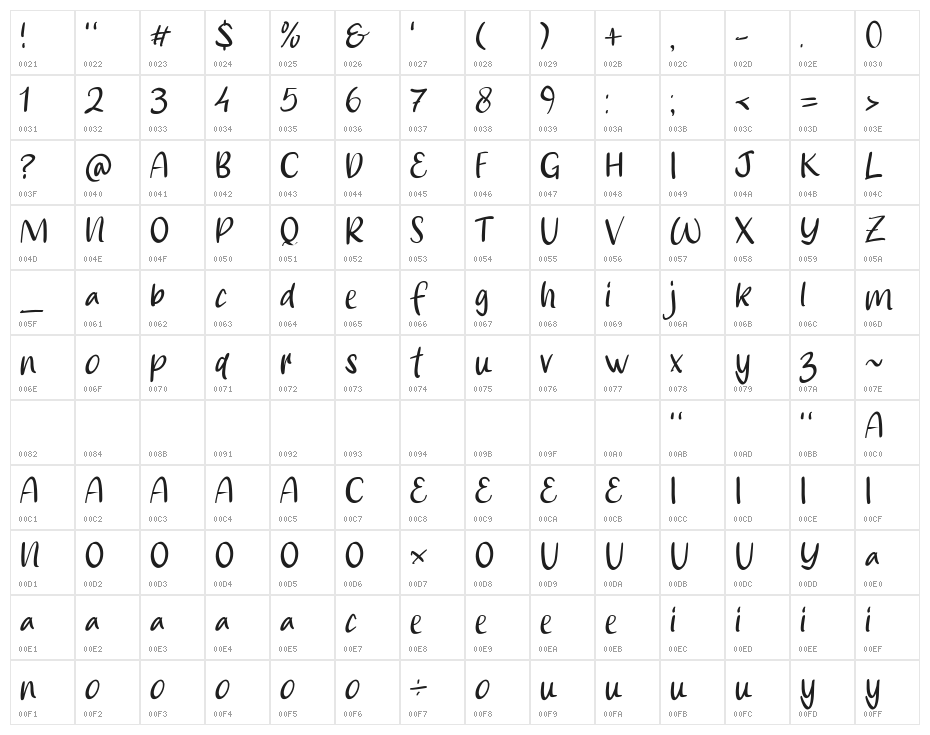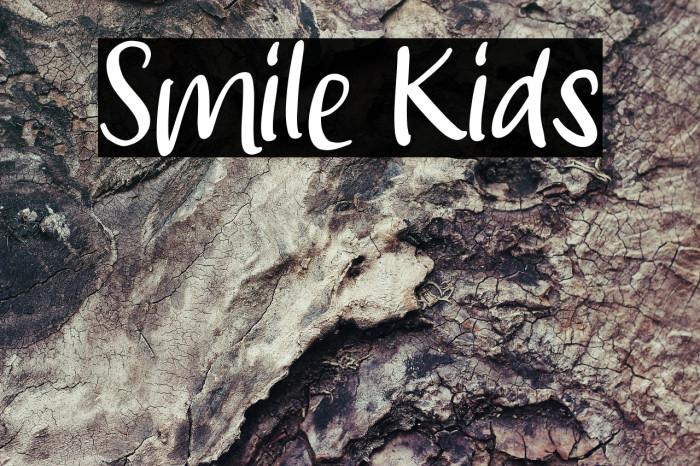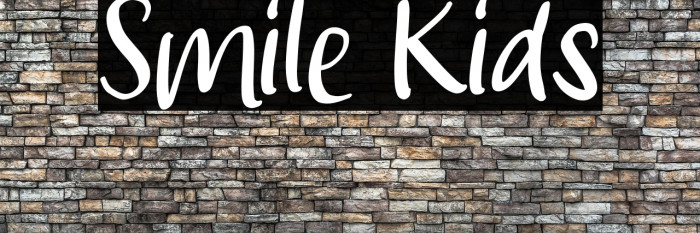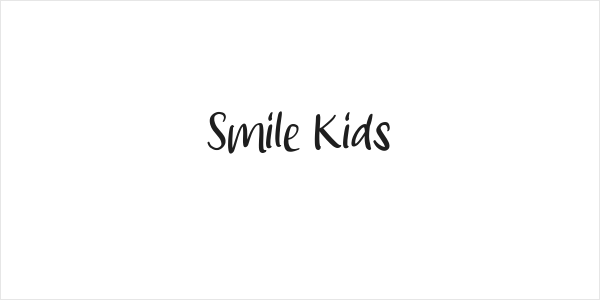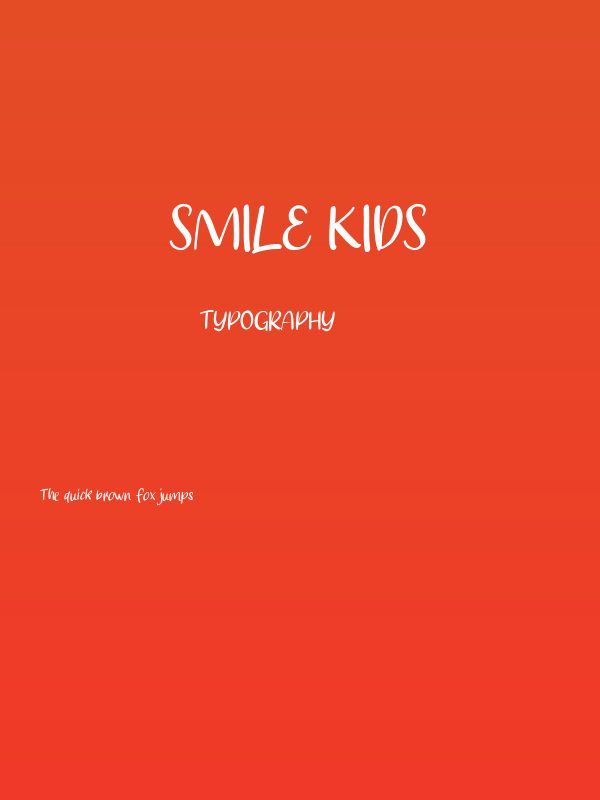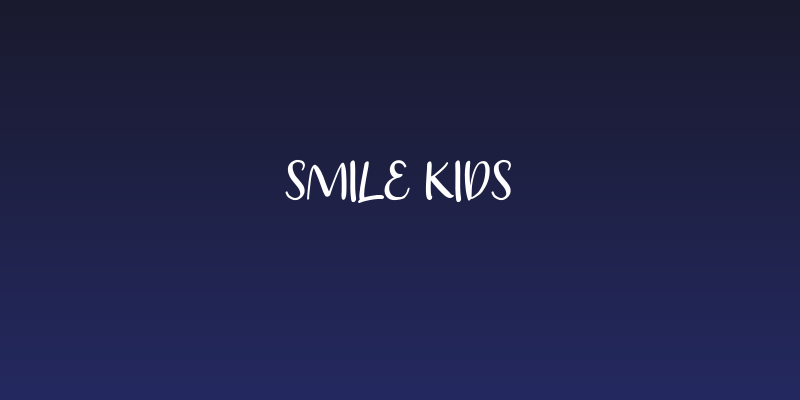
Smile Kids Font
Smile Kids Description
This playful and energetic font exudes a sense of fun and creativity, characterized by its handwritten style. The letters are slightly irregular, giving it a personal and informal touch. The strokes are bold and confident, with a lively bounce that adds to its charm. The font maintains a consistent flow, making it easy to read while still retaining a whimsical quality. Its unique style is perfect for projects that require a friendly and approachable feel, such as children's books, playful branding, or casual invitations.
| Proposed Projects | Ideal for children's books, playful branding, casual invitations, and creative projects. |